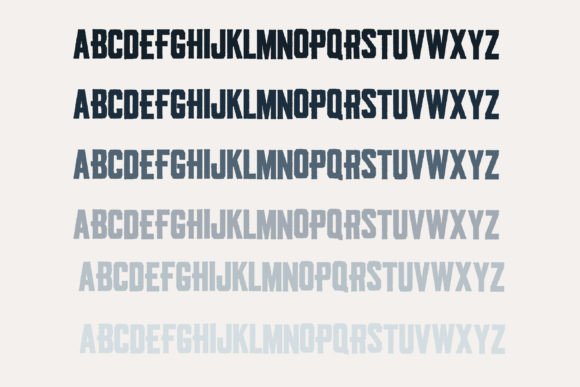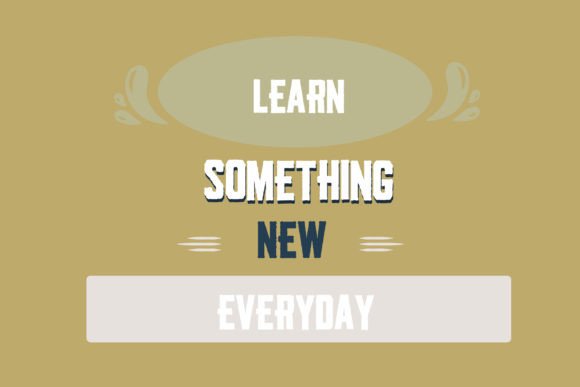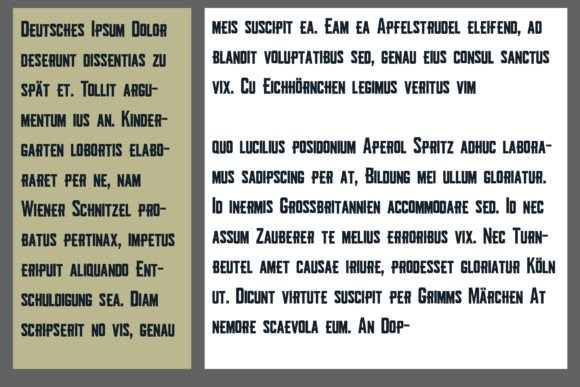
Battlefield Font
Battlefieldlines is a bold, energetic sans serif font designed especially for sports. Its rugged texture adds depth and intensity to your text, making it perfect for posters, jerseys, and team logos. With its strong lines and dynamic appearance, Battlefieldlines stands out on any playing field.